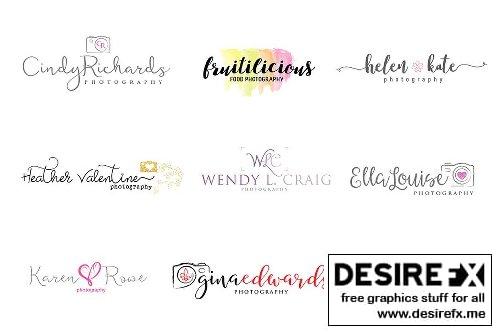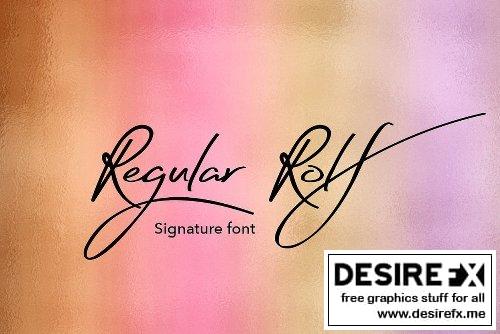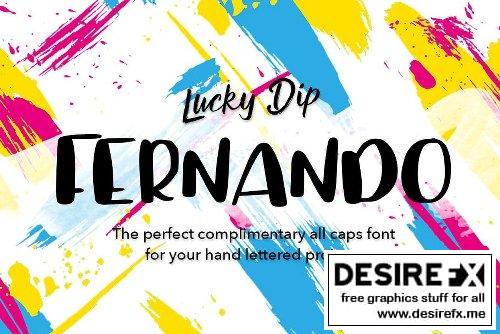
63 Font Families – includes a varied range of typographic styles such as wedding fonts, modern calligraphy, signature, brush lettering, layered, hand lettering, swash, hispter, travel and more. Many have alternative glyphs, ligatures and swashes and contain multi-lingual support. There are also a few layered fonts for you too!
125+ Logo Templates – These lovely logo templates can be edited to promote different types of businesses such as jewellery, handmade products, florists, IT, blogging, etc – with so many different styles of designs you’ll be sure to find your perfect logo within this bundle. This pack offers hundreds of logo combinations and I’m sure that you’ll have some fun while you mix and match the graphics with my fonts (or a font of your choice) to create the logo that says it all about your business. Supplied in .psd and .eps vector formats.